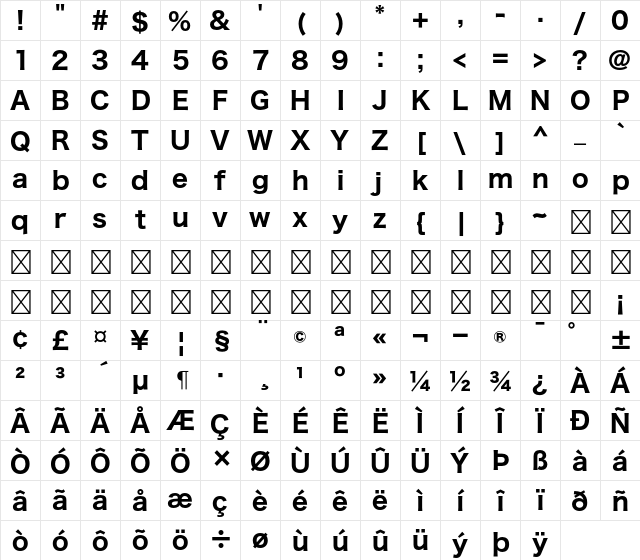
Complete Hiragino Kaku Gothic StdN W7 glyph index. Displaying only characters natively supported by Hiragino Kaku Gothic StdN W7 font.
Hiragino Kaku Gothic StdN takes a clean, functional approach - its unadorned letterforms prioritise legibility and work reliably across screen and print environments.
Who designed the Hiragino Kaku Gothic StdN W7 font?
This font was published by Dainippon Screen Mfg. Co., Ltd.. Check the technical specs section for copyright and designer details.